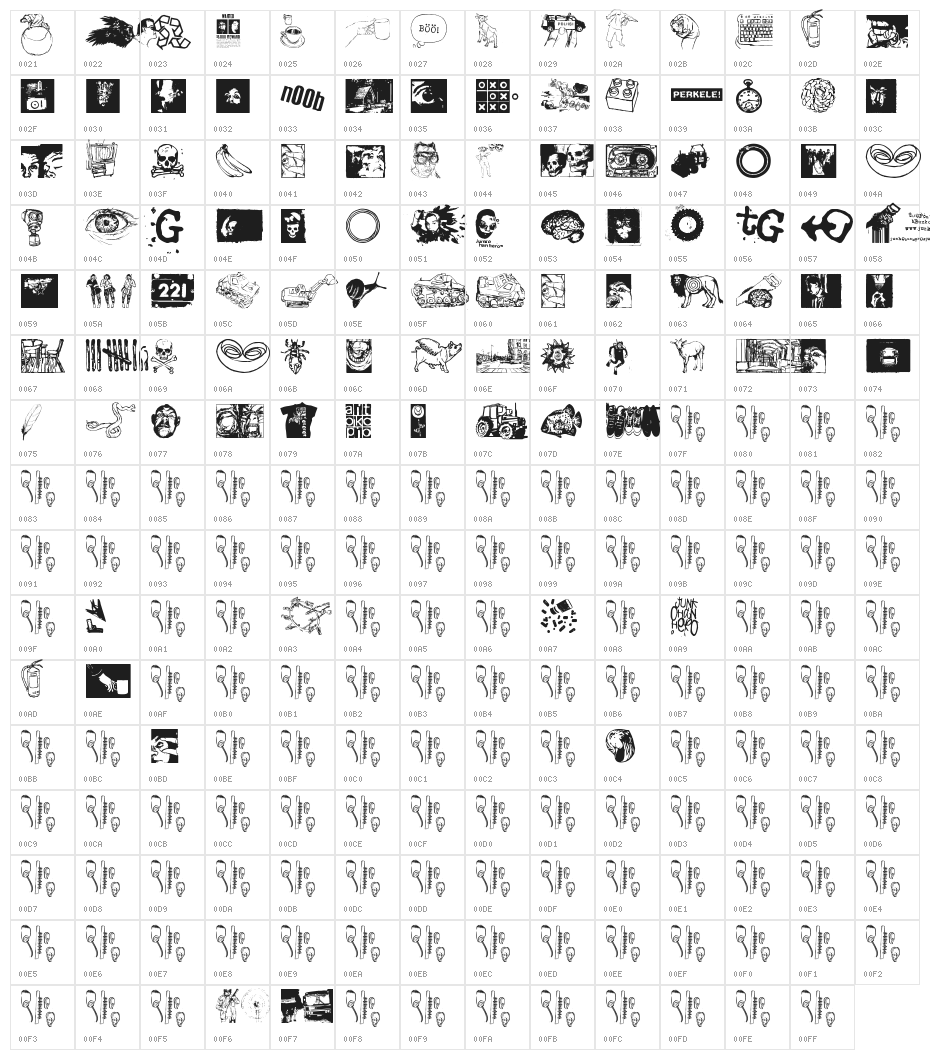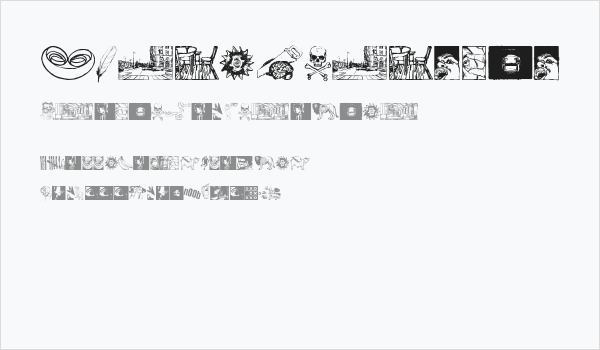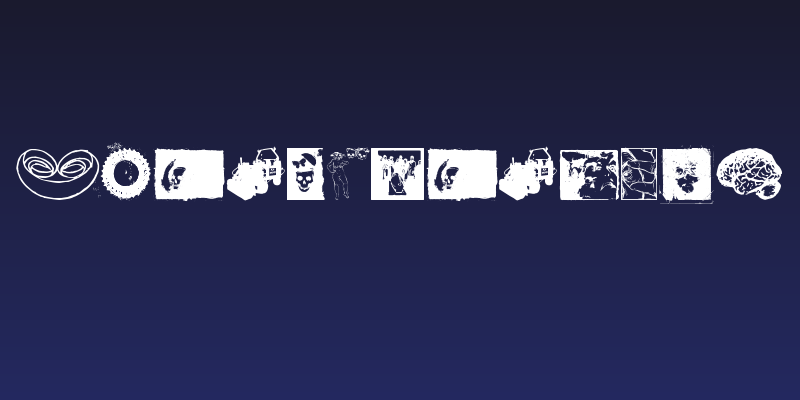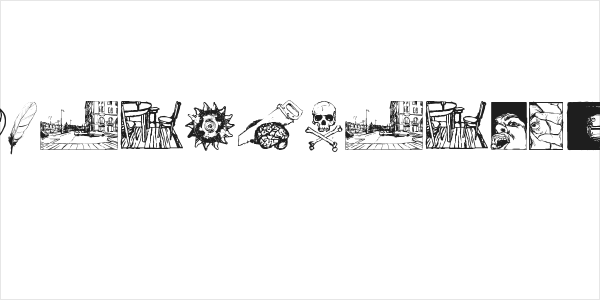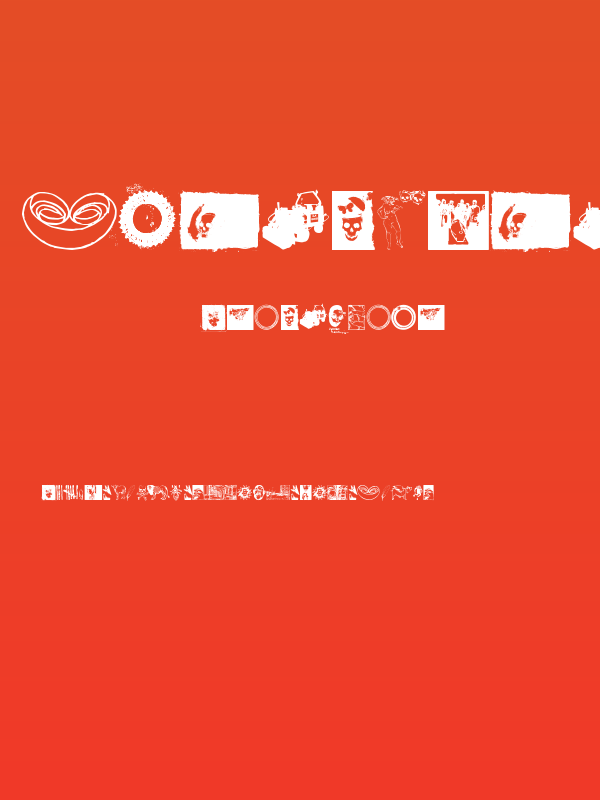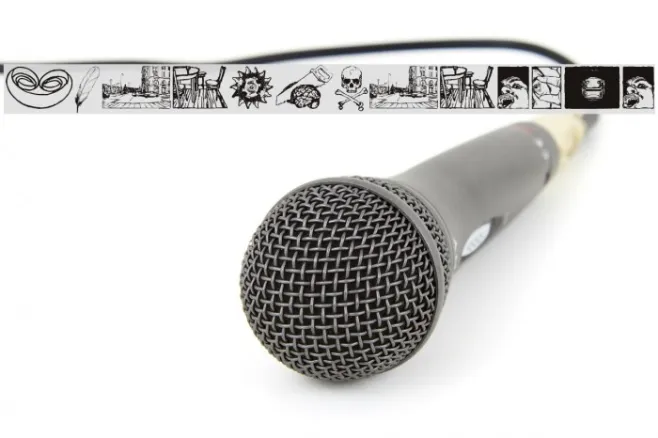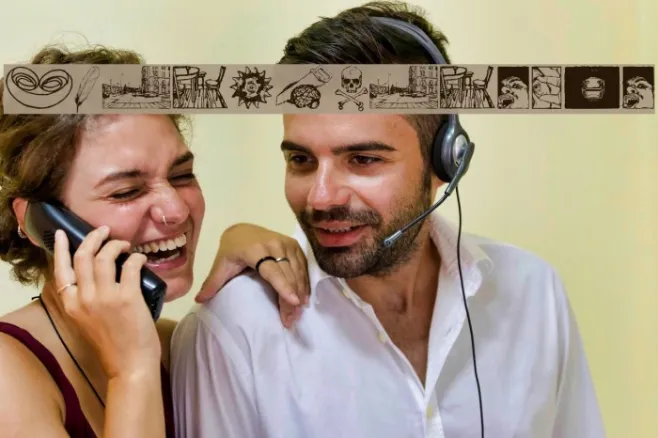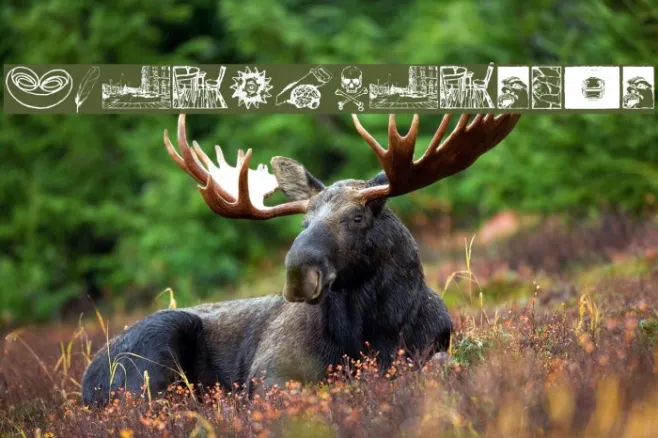
jungodingbats Font
jungodingbats Description
This is a decorative dingbat font featuring a diverse collection of intricate and playful illustrations. Each character is represented by a unique graphic, ranging from abstract shapes to detailed depictions of animals, objects, and symbols. The style is eclectic, with a mix of modern and vintage elements, providing a whimsical and artistic touch. The graphics are bold and detailed, making them suitable for creative projects that require a distinctive visual impact. The font is not designed for traditional text but rather for embellishing designs with its quirky and imaginative icons.
| Use Case | Logos, Posters, Artistic Designs |
| Proposed Projects | Ideal for use in graphic design projects, posters, album covers, and any creative work that benefits from unique and artistic embellishments. |